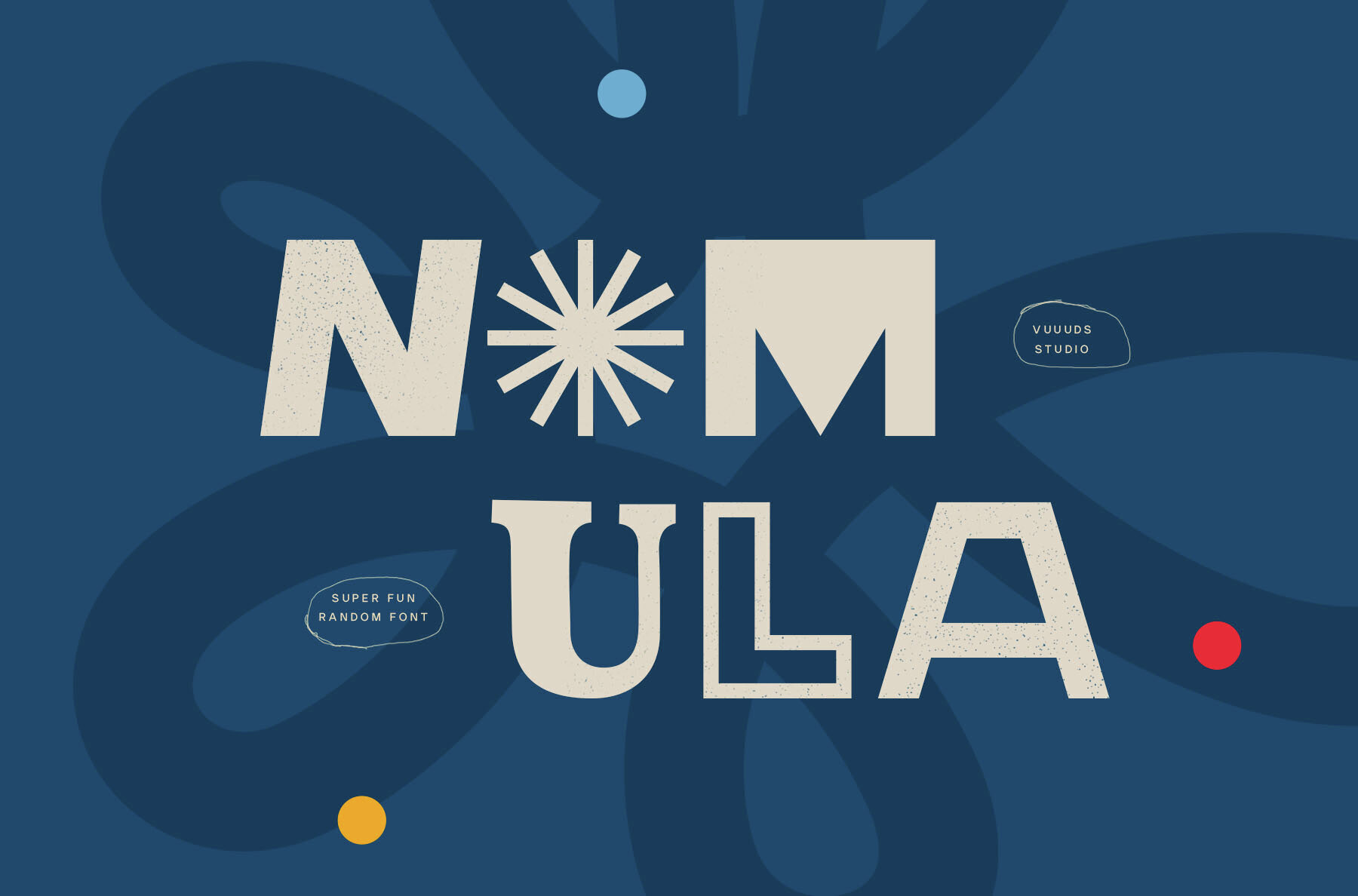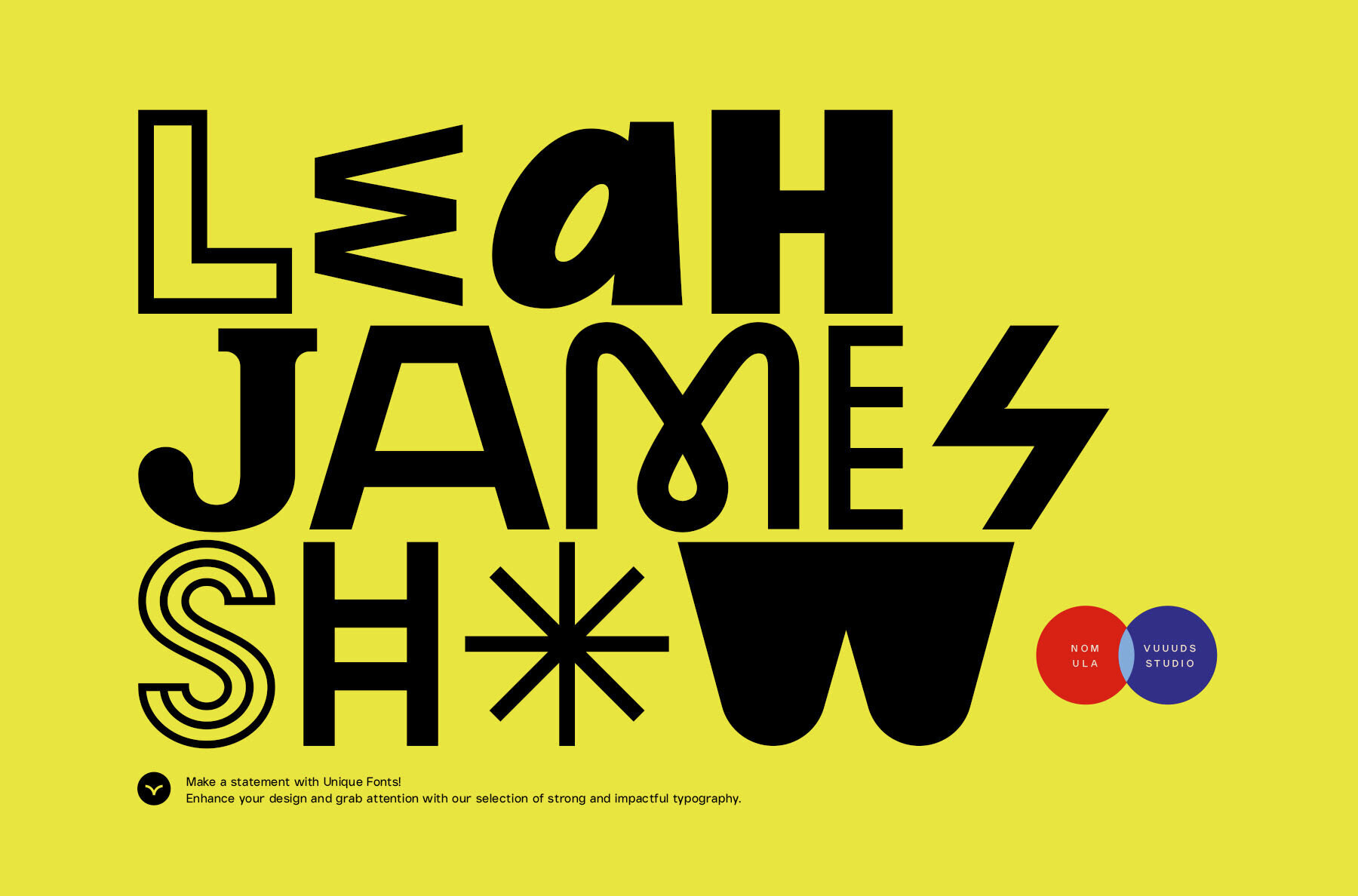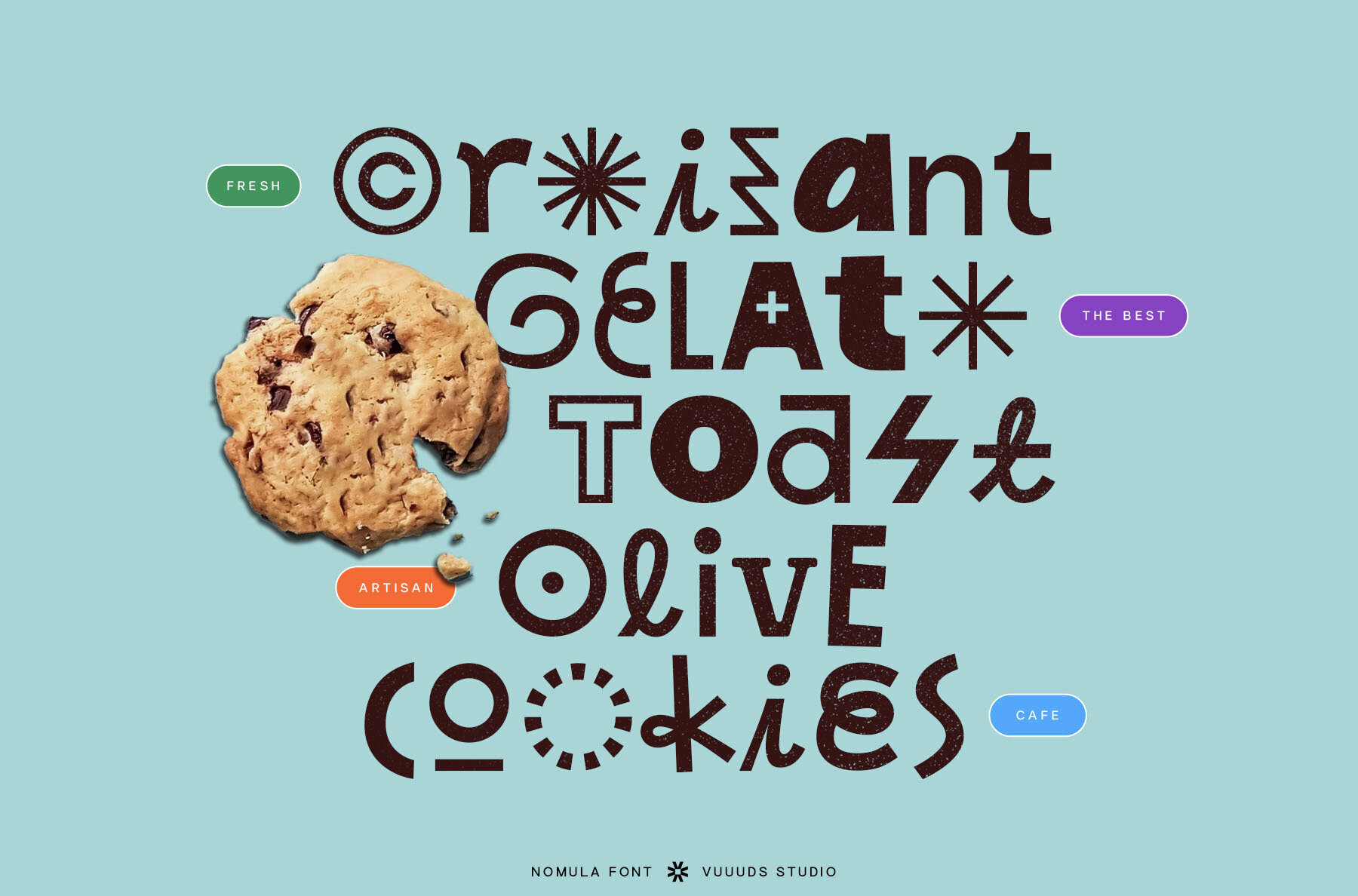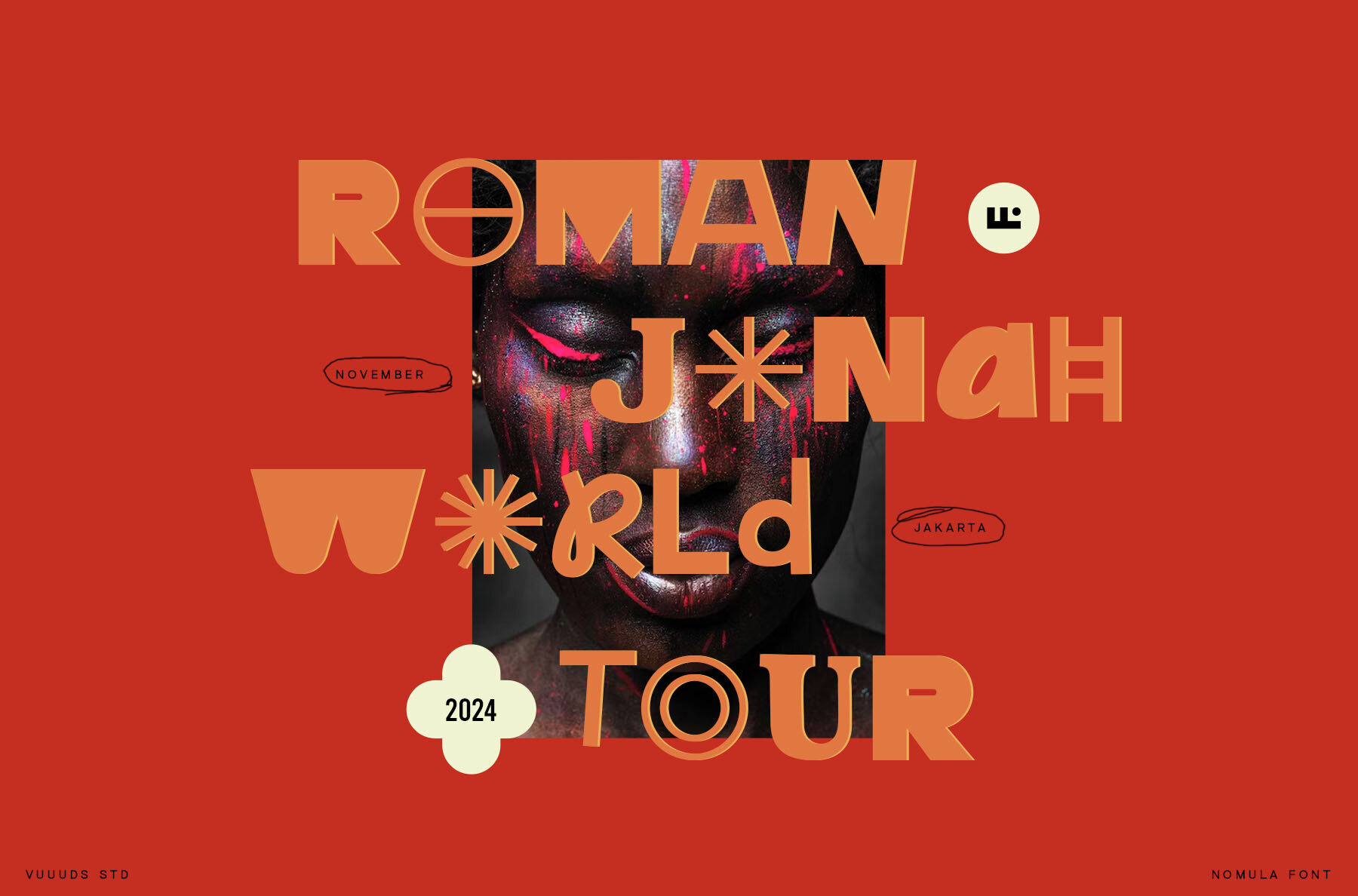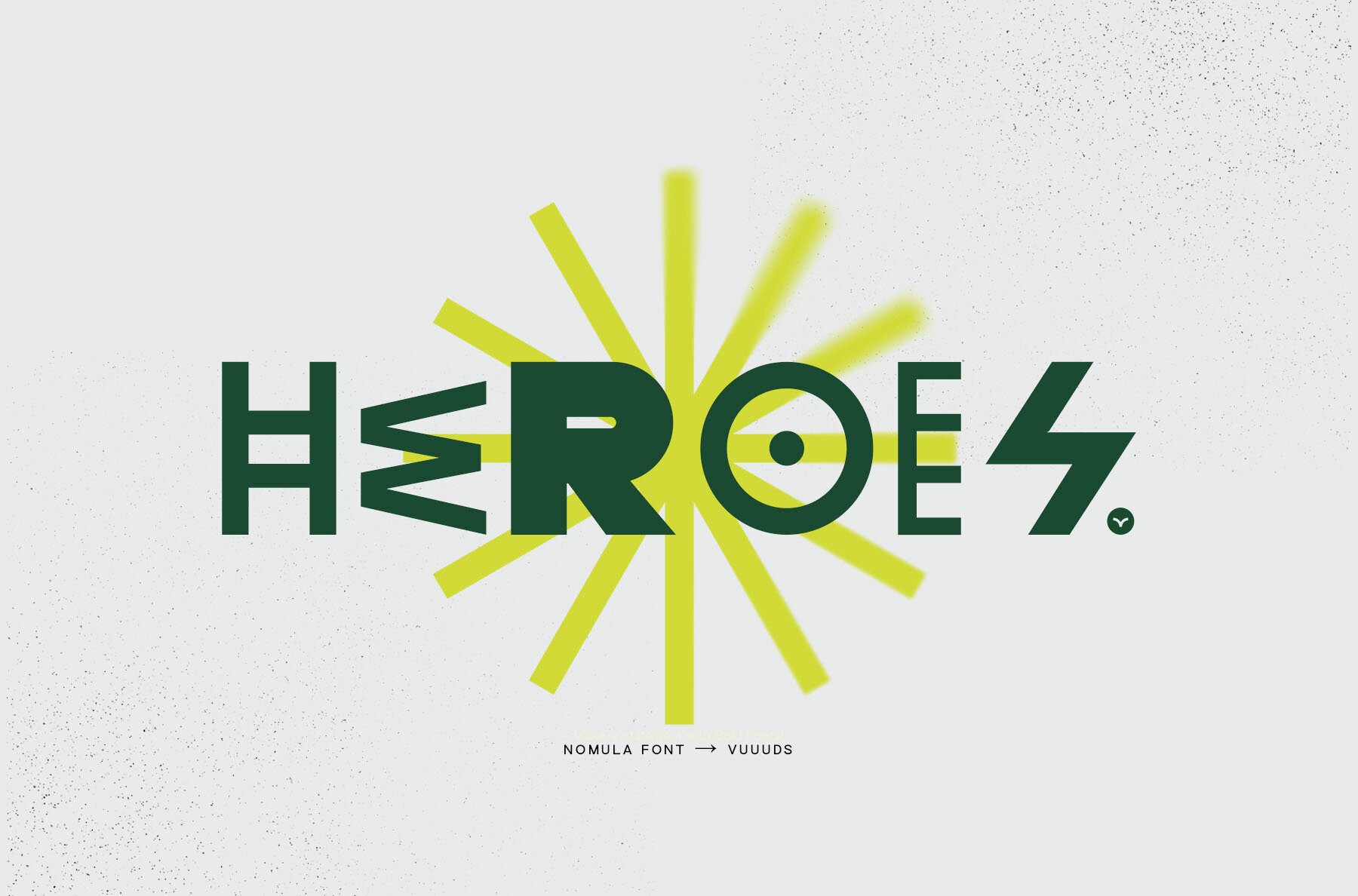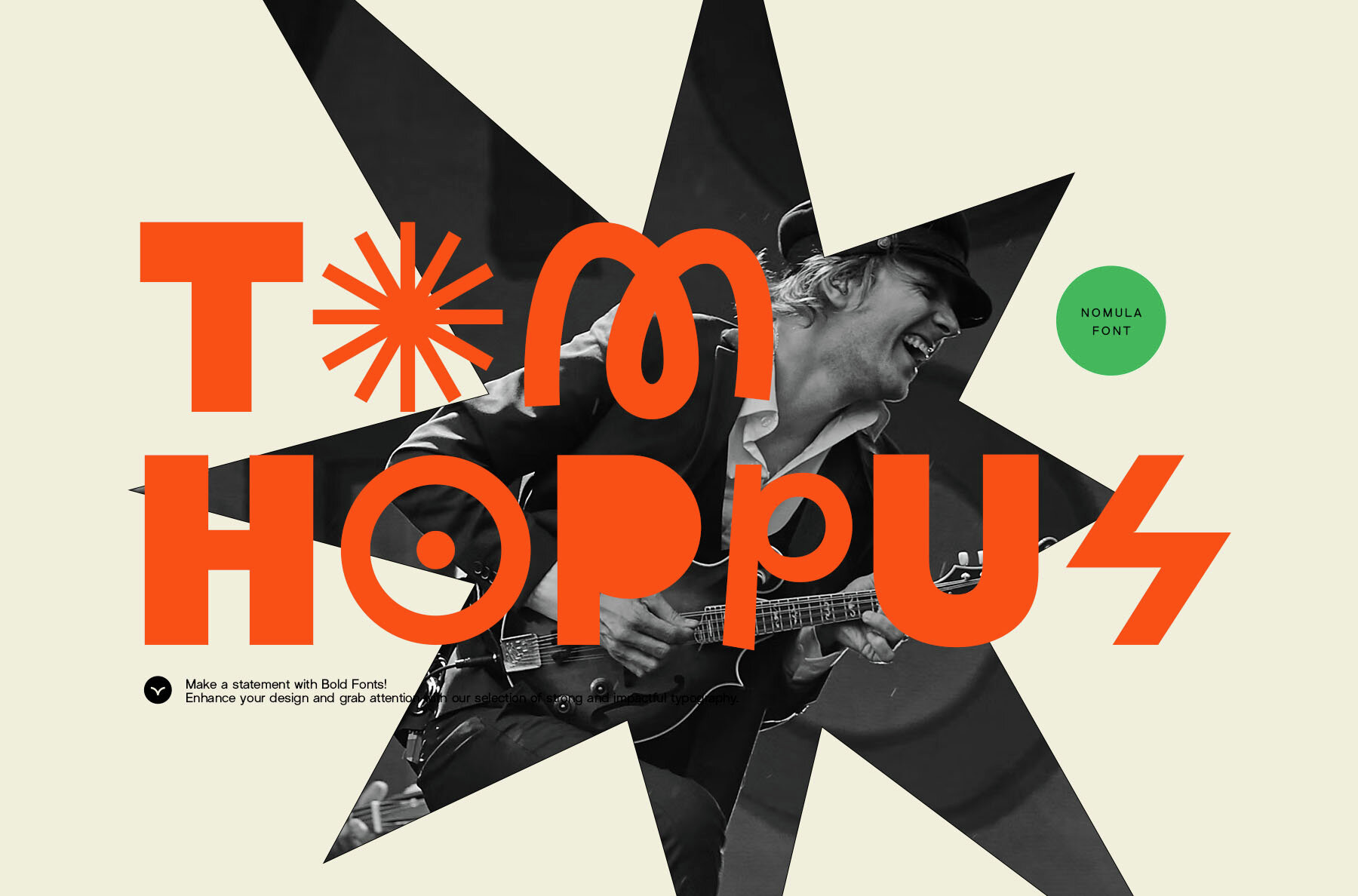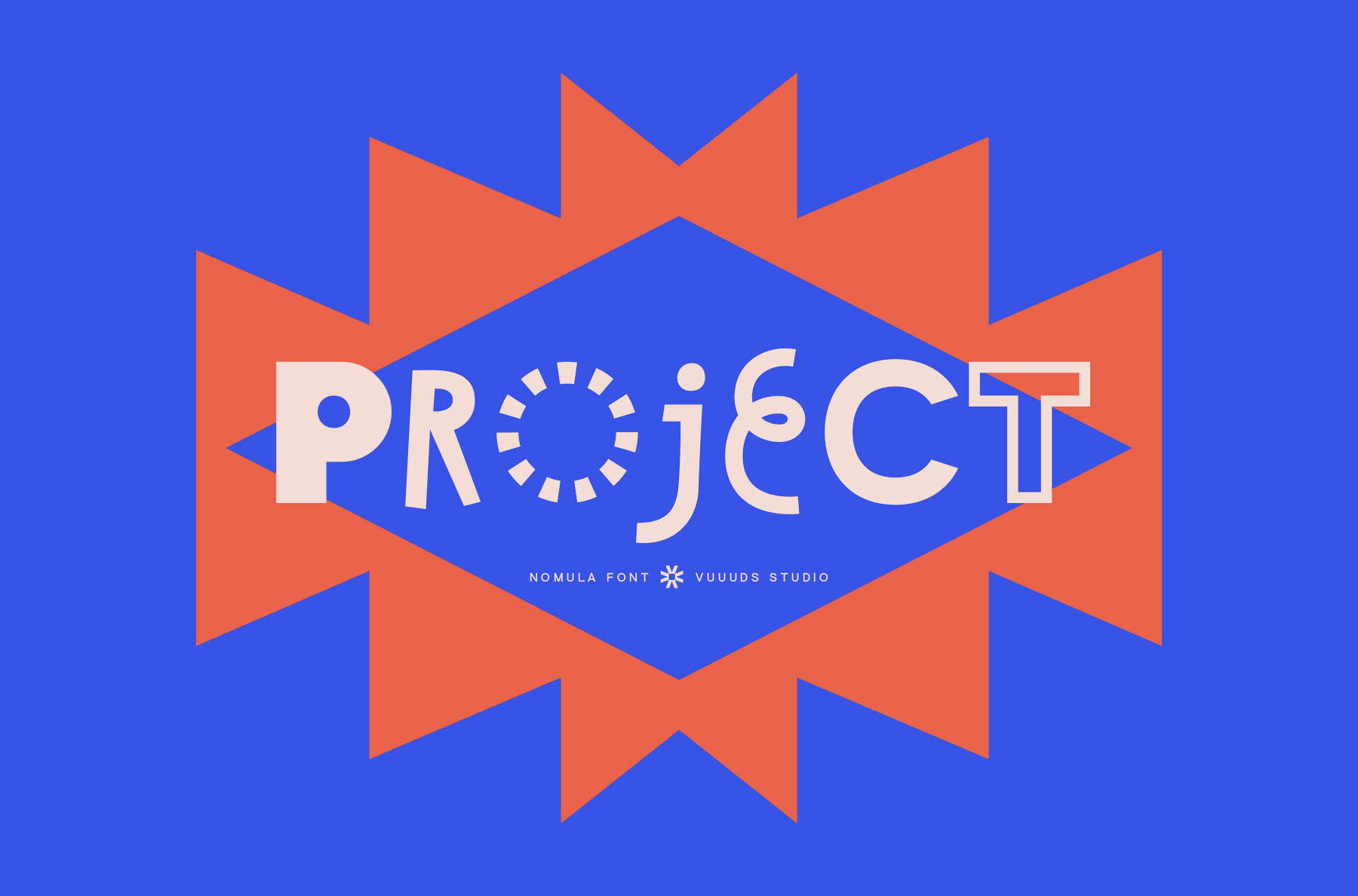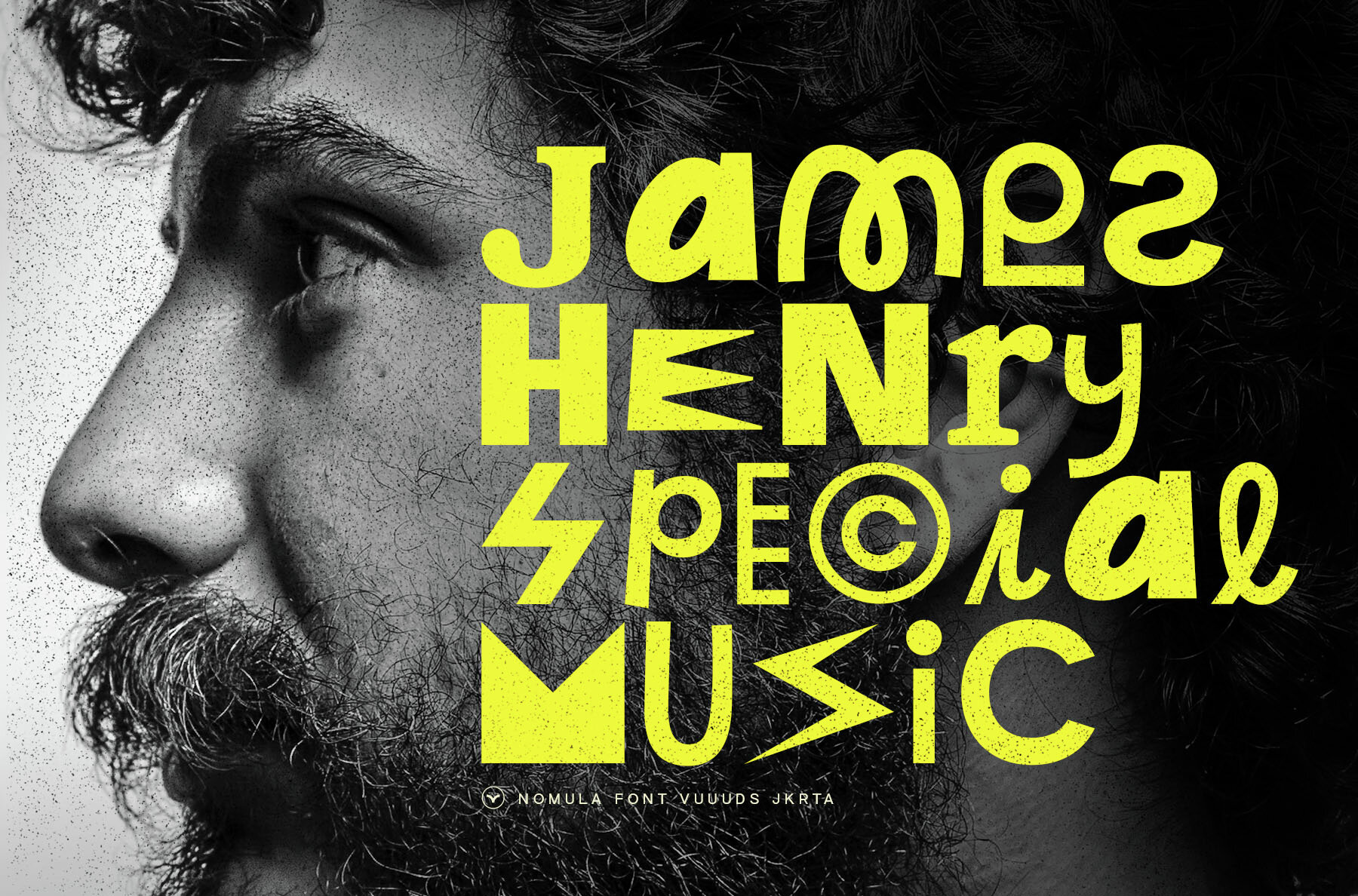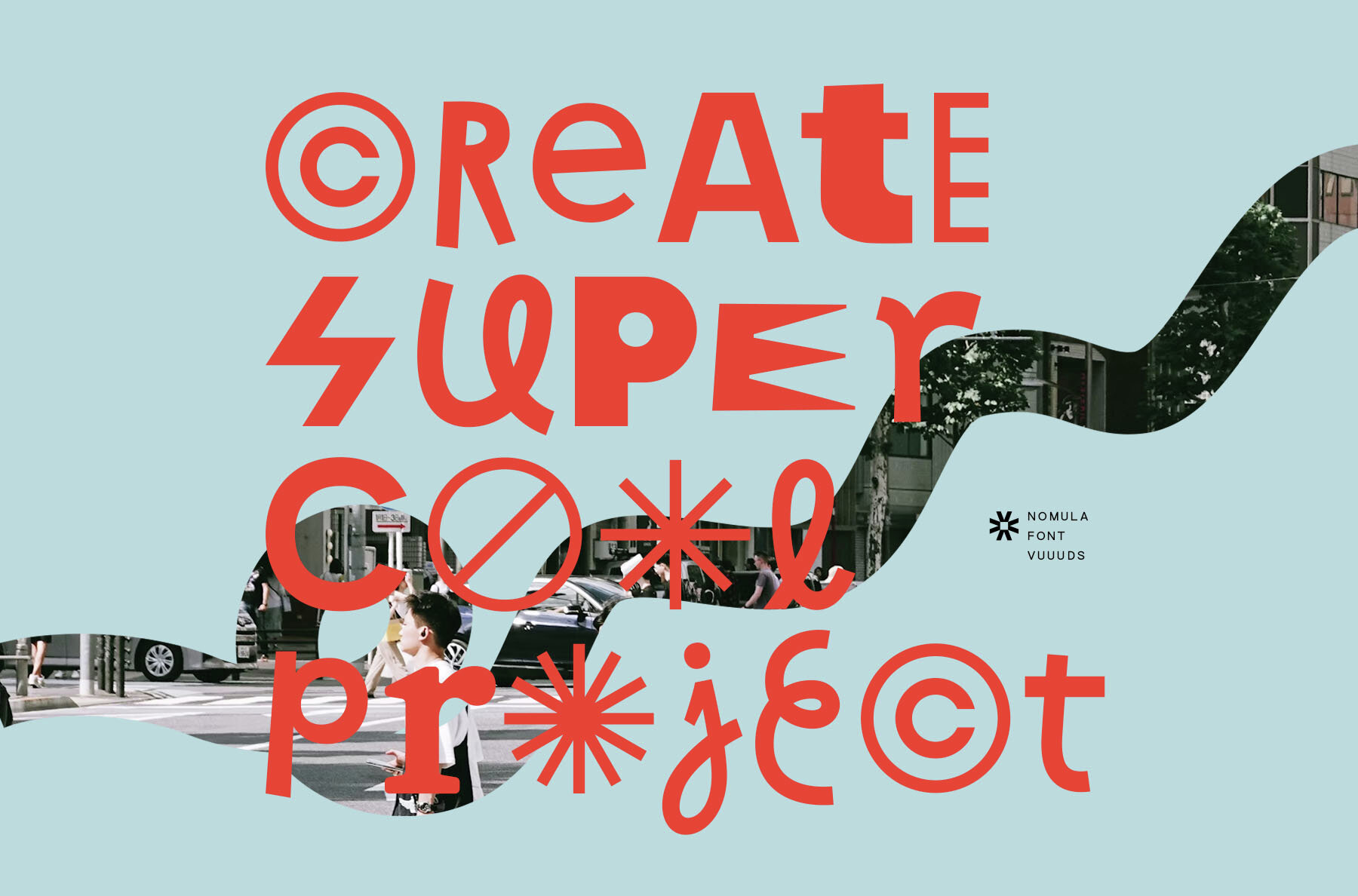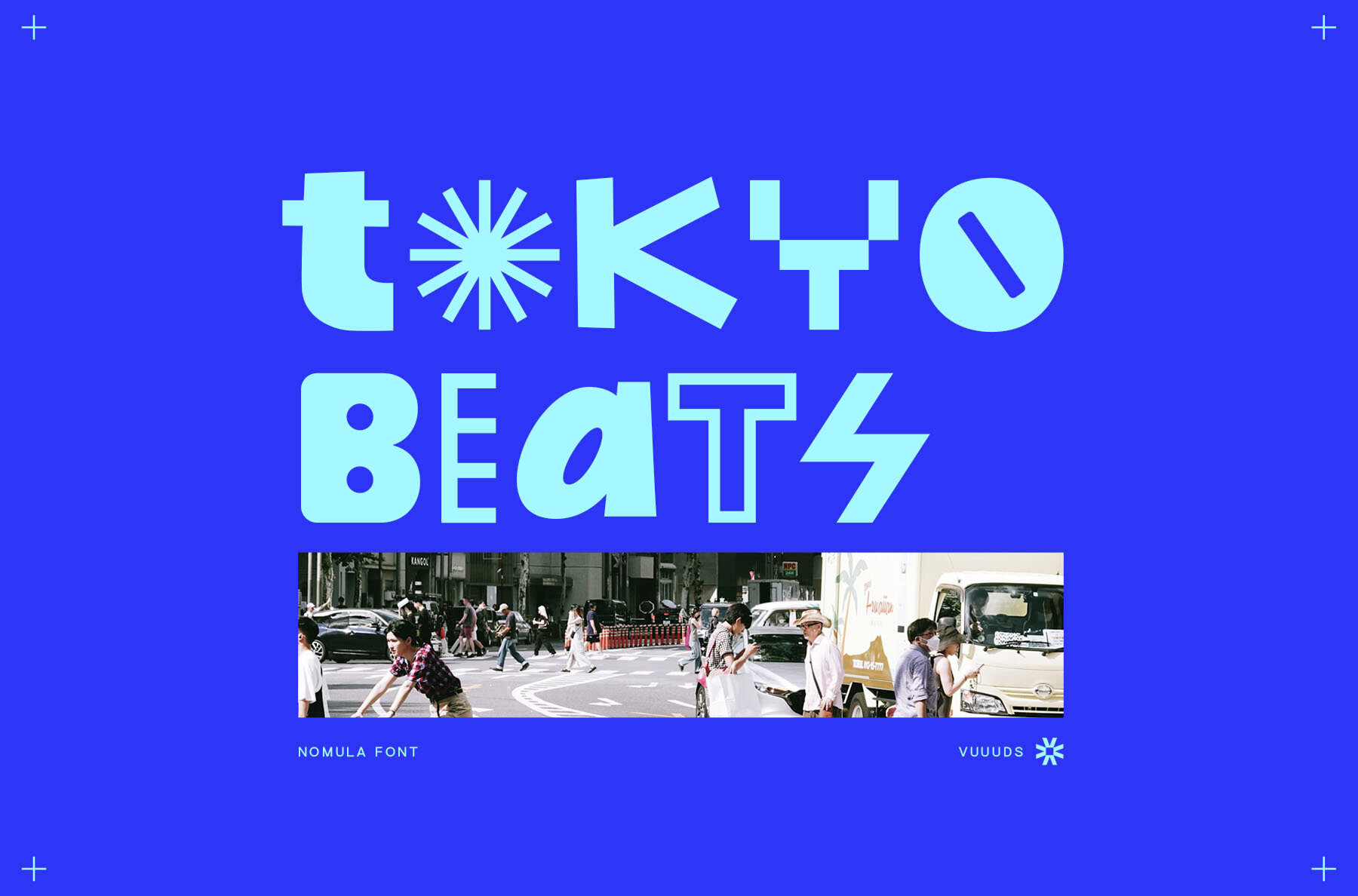
Nomula Font
Nomula
Nomula is a modern, experimental display font with uniquely crafted letters that stand out in any design. Featuring beautiful alternate glyphs, this font provides versatile options for creative projects. Users can easily access these alternates through Font Book on Mac or Windows Character Map, with a tutorial link included in the download for convenience.
Nomula supports a wide range of foreign languages, including characters like ÀÁÂÃÄÅÆÇÈÉÊËÌÍÎÏÐÑÒÓÔÕÖØÙÚÛÜÝàáâãäåæçèéêëìíîïðñòóôõöøùúûüýÿ߀£¥ŒŠŸ¢œšž©®™. This font's diverse character set makes it perfect for international projects, ensuring your designs are accessible to a global audience.